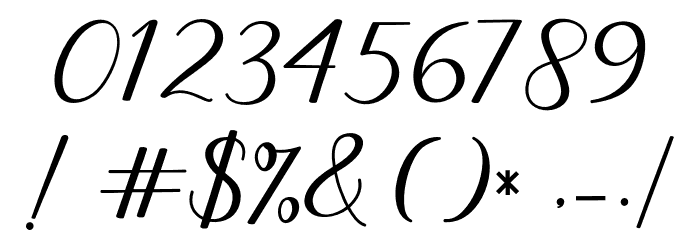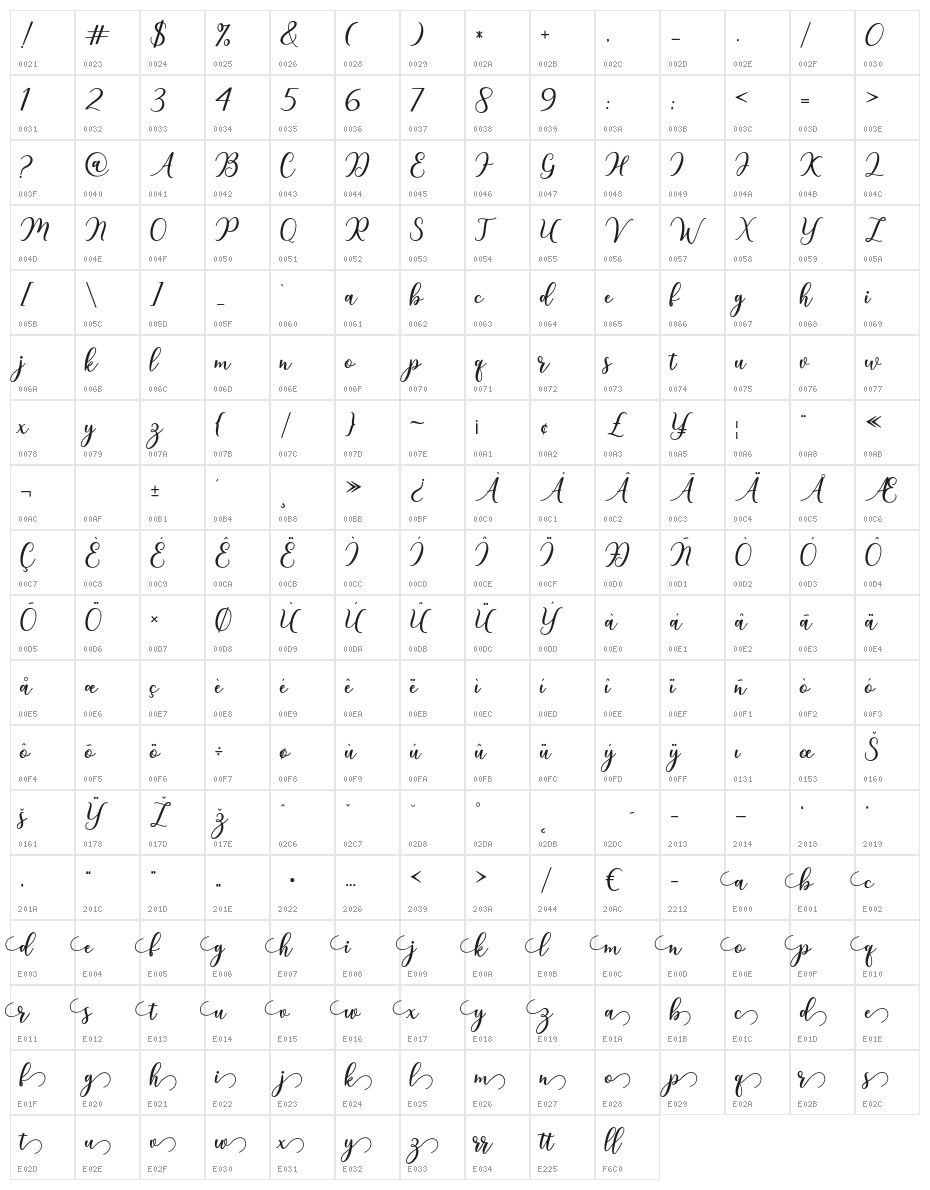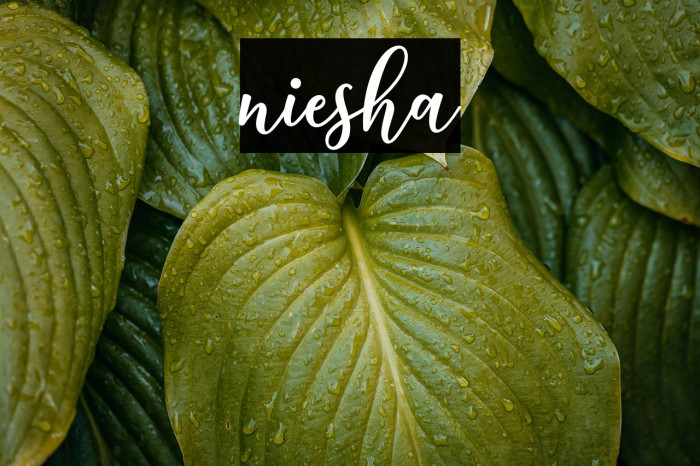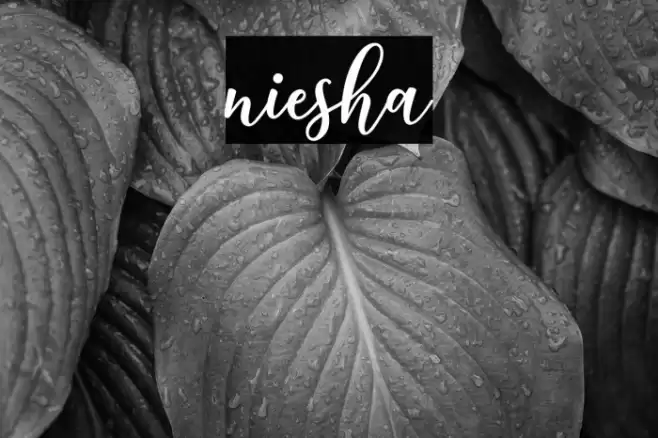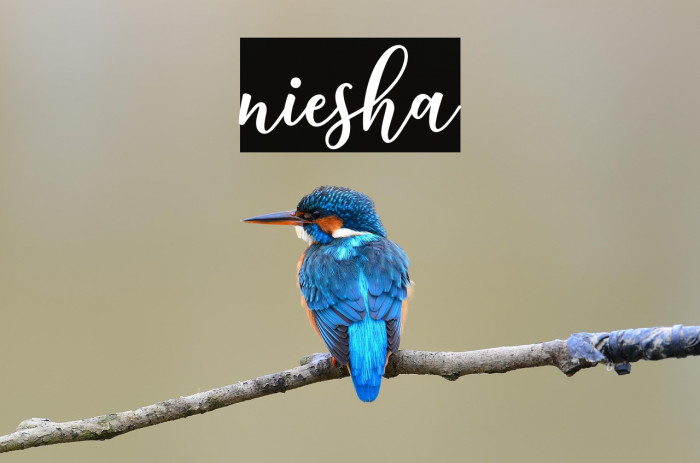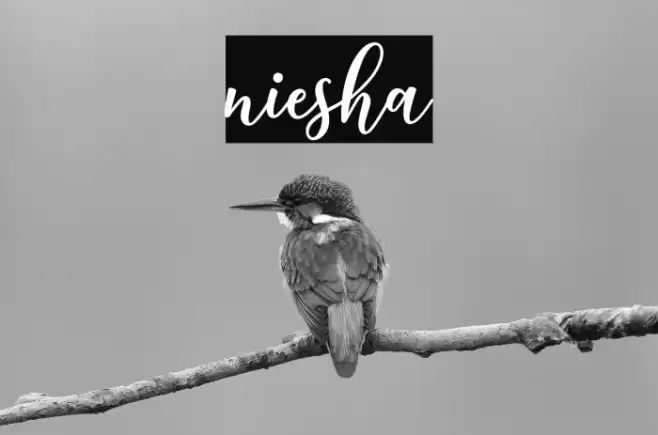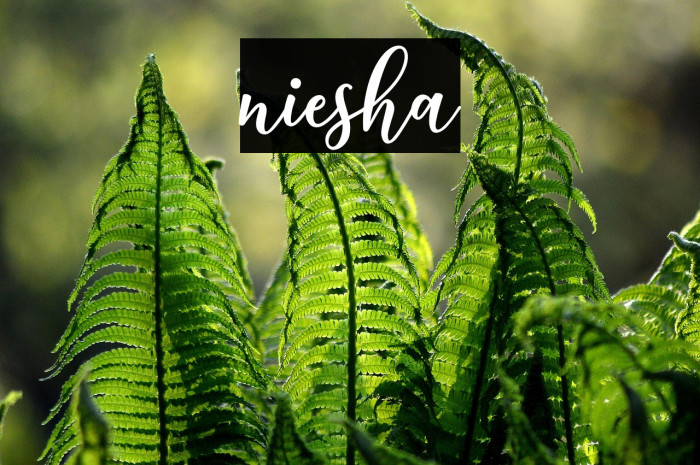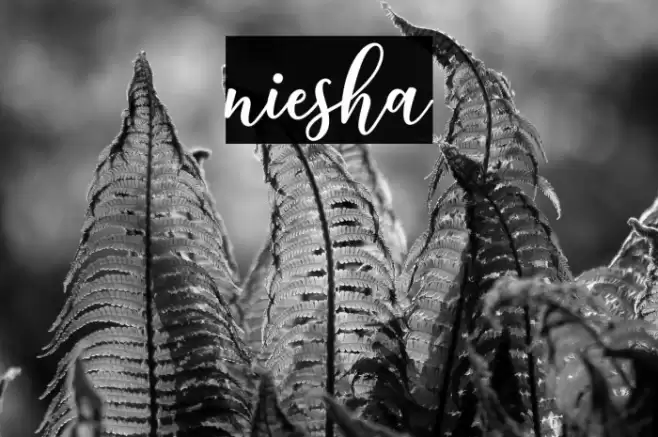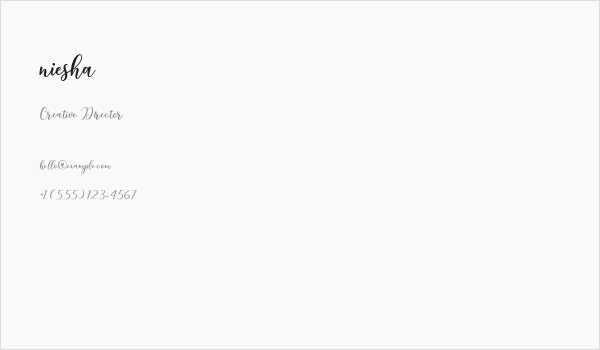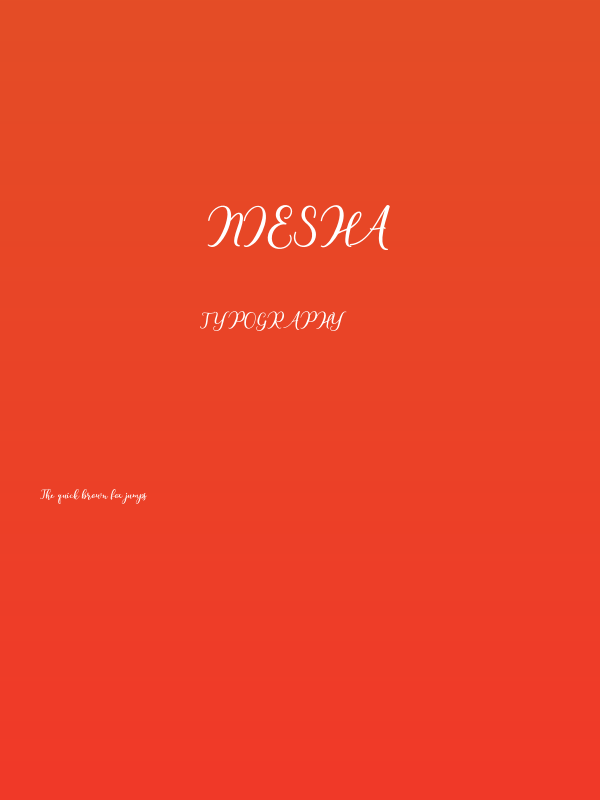
niesha Font
niesha Description
This font features a flowing, elegant script style with a modern touch. The uppercase letters exhibit graceful curves and loops, giving them a sophisticated appearance. The lowercase letters maintain a consistent flow, with some characters like 'g' and 'y' having distinctive descenders that add to the font's charm. The numerals are stylish yet clear, making them suitable for various applications. Special characters are designed with the same attention to detail, ensuring they blend seamlessly with the rest of the font. Overall, this font combines elegance with readability, making it versatile for both formal and creative projects.
| Proposed Projects | Ideal for wedding invitations, branding, greeting cards, and elegant packaging designs. |